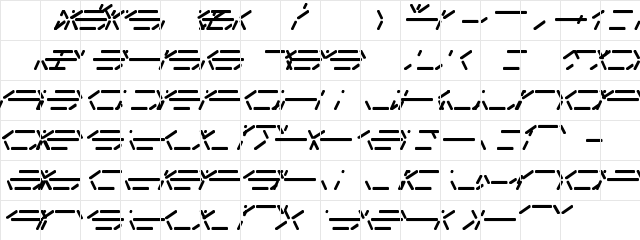
Fifteen Segment Rush Mono LDR Regular
Design Context for Fifteen Segment Rush Mono LDR Typeface
Fifteen Segment Rush Mono LDR brings the precise, column-aligned rhythm of monospaced typography to designs that value technical clarity and systematic order.
Well-suited to data-driven dashboards, coding tutorials, and any design that wants to reference the world of programming.
Pro Tip: Use Fifteen Segment Rush Mono LDR with slightly increased line-height for extended reading — fixed-width spacing can feel dense in longer passages without extra breathing room.